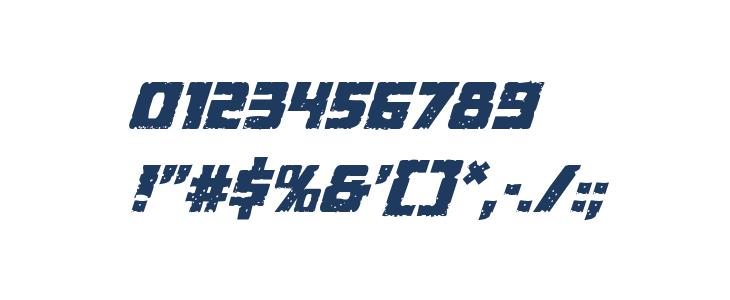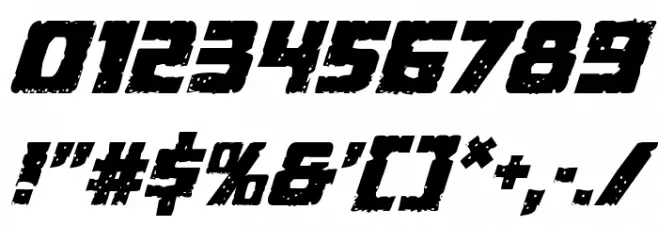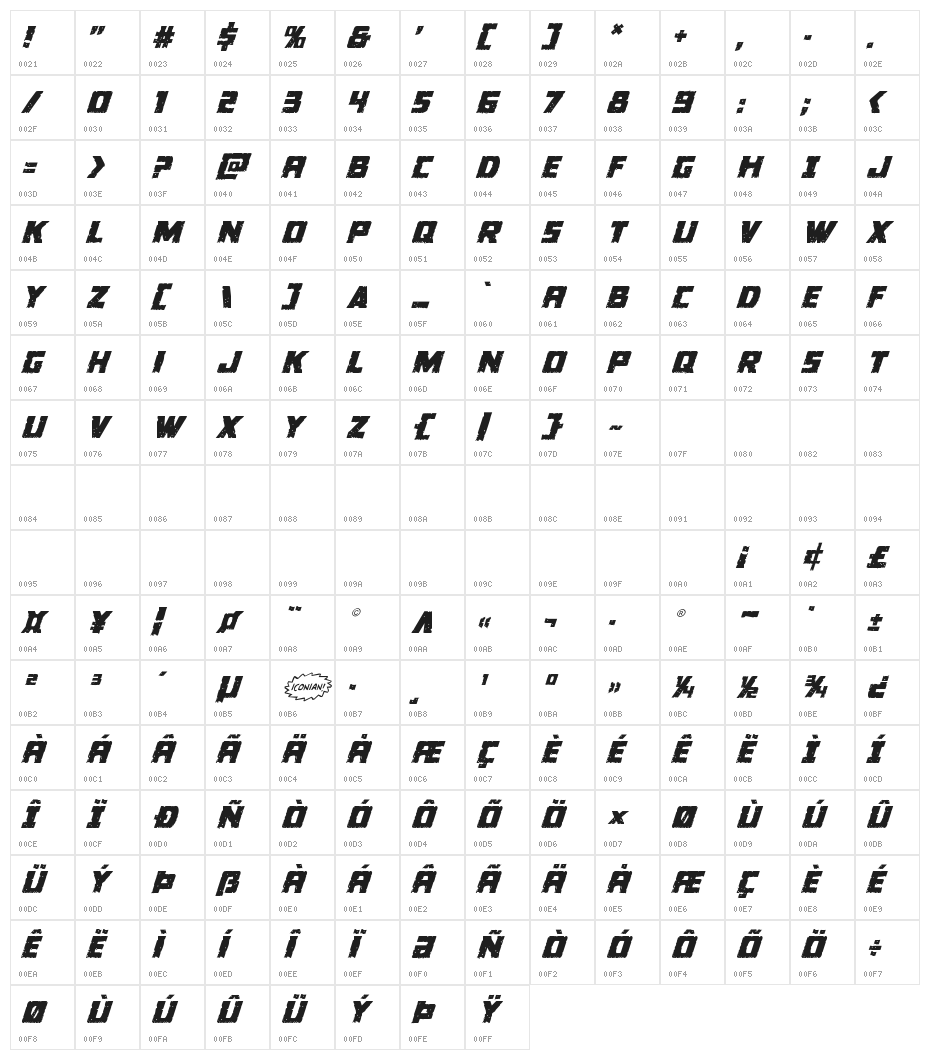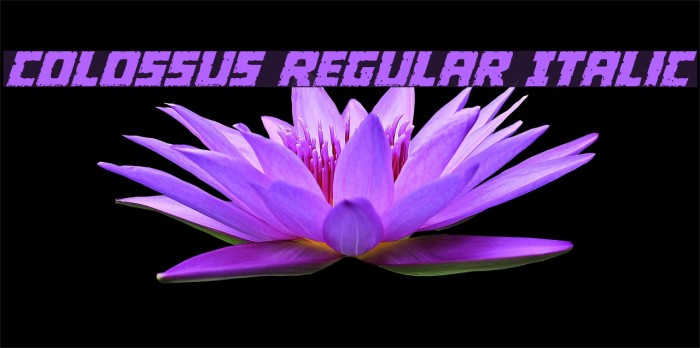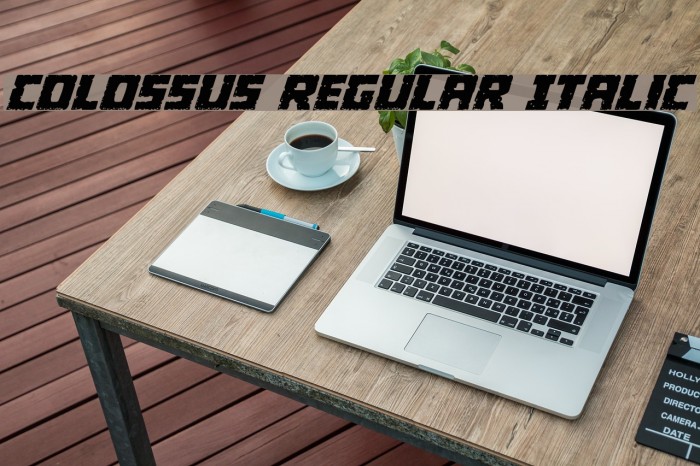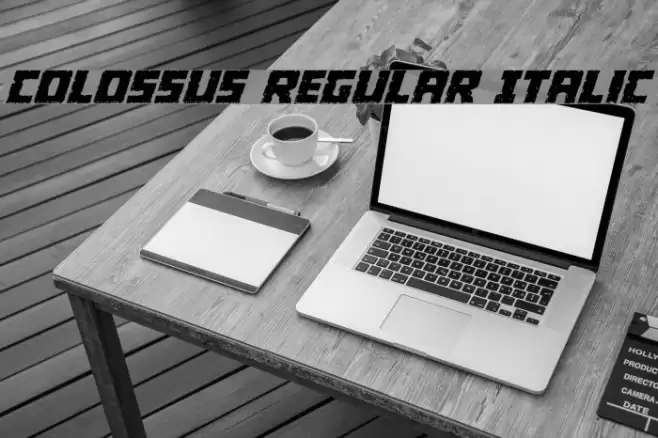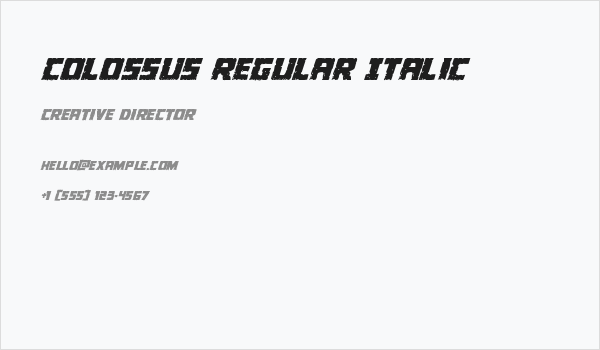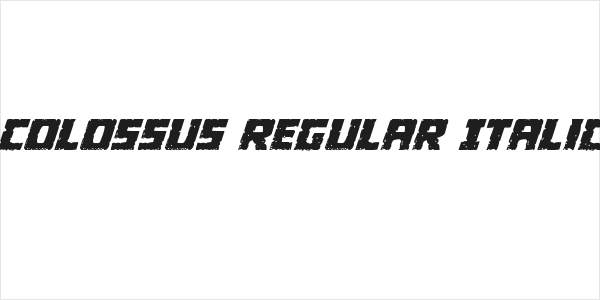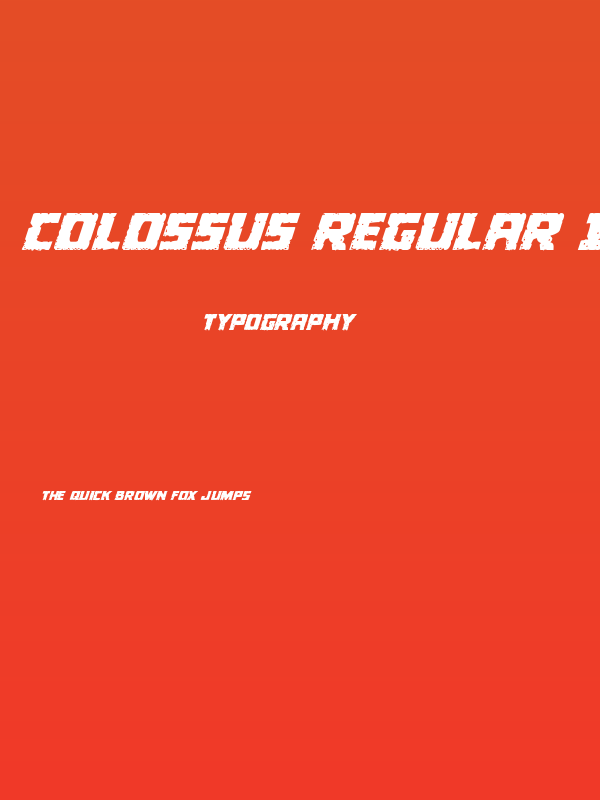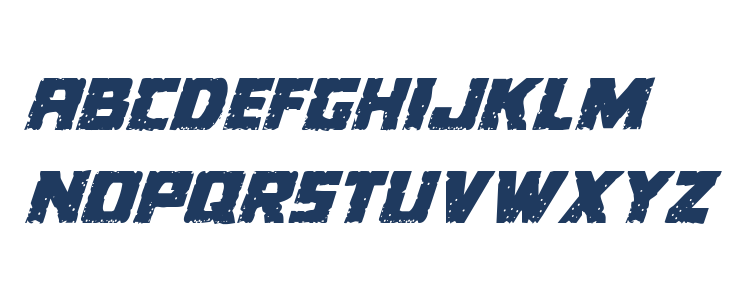
Colossus Regular Italic Font
Colossus Regular Italic Description
This font features a bold, italicized style with a distressed texture that gives it a rugged and dynamic appearance. The characters are slightly slanted, enhancing the sense of motion and energy. The bold strokes are consistent throughout, with a medium contrast between thick and thin areas, adding to its robust look. The spacing between characters is relatively tight, which contributes to its compact and impactful presence. This font is ideal for projects that require a strong, attention-grabbing typeface with a gritty, industrial feel.
| Proposed Projects | Ideal for sports branding, action movie posters, video game titles, and edgy graphic designs. |